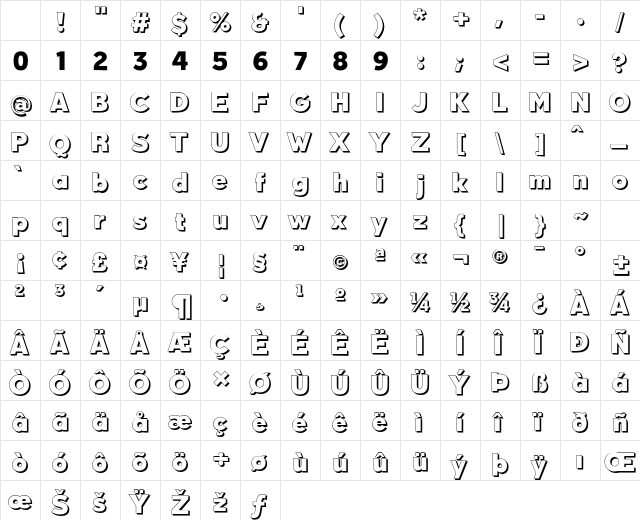
Complete Qebab Shadow FFP Regular glyph index. Displaying only characters natively supported by Qebab Shadow FFP Regular font.
Qebab Shadow FFP is built around its visual character rather than neutral utility - its distinctive forms are designed to make an impression at display sizes.
Font Pairing: Pair with a clean neutral sans-serif for body copy to let Qebab Shadow FFP's character lead without overwhelming the composition.